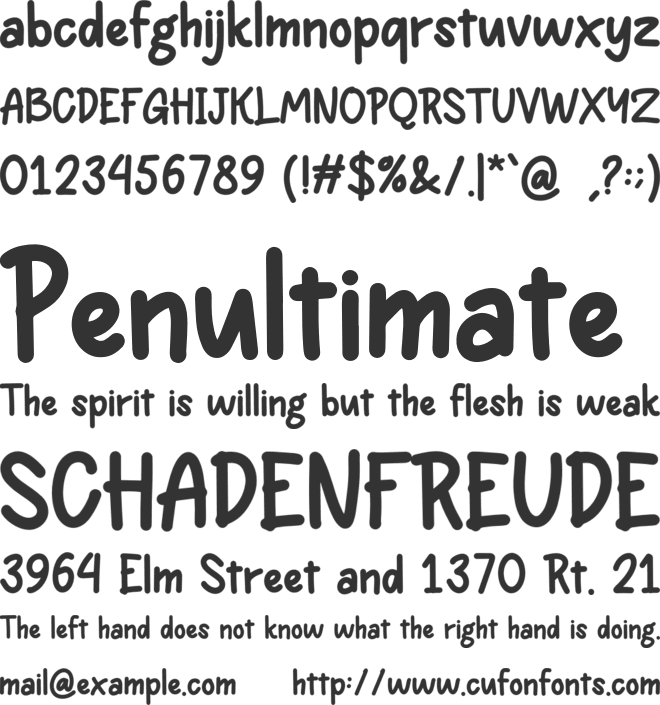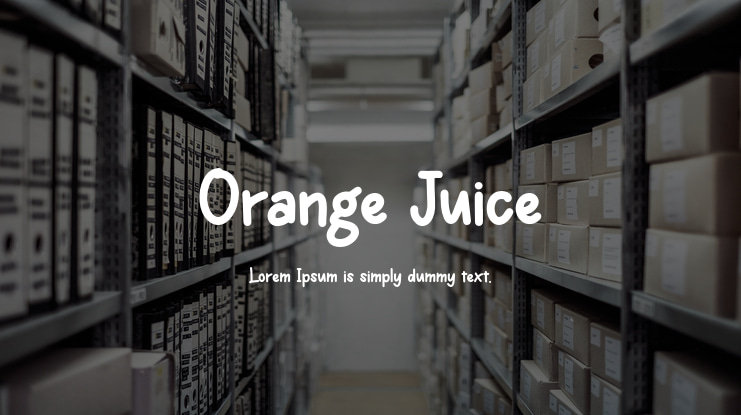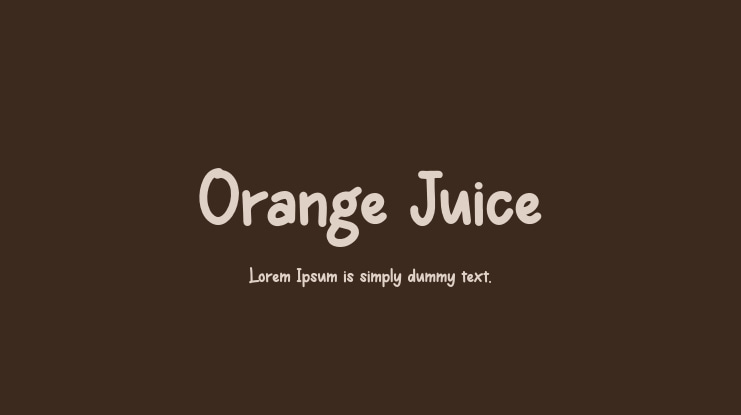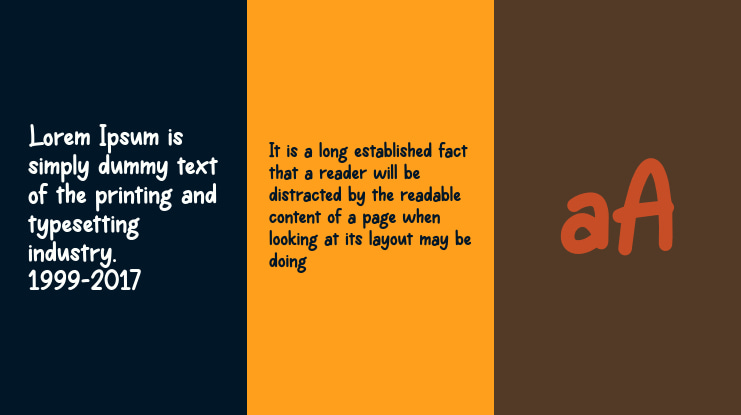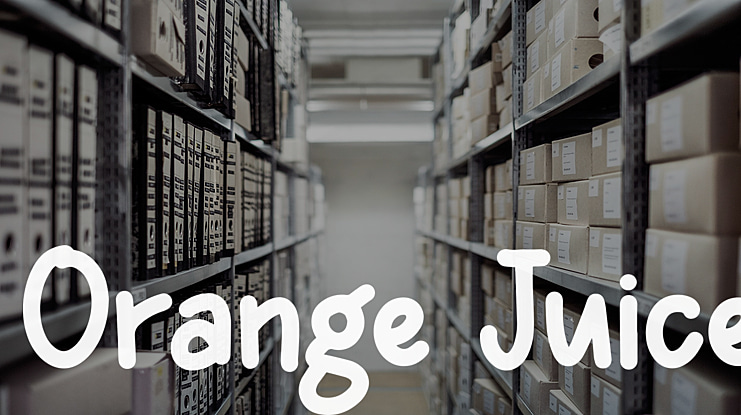
Orange Juice Font Family
Orange Juice Font will be perfect for books, greeting cards, logos, posters or anything that requires a fun and happiness look!